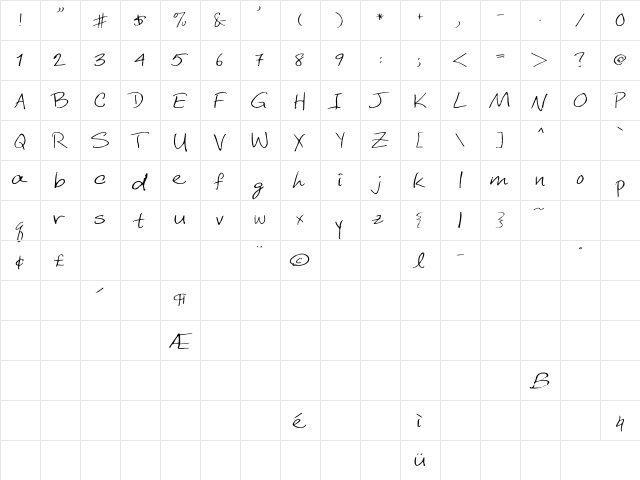
DCWri Ex Regular
Design Context for DCWri Ex Typeface
DCWri Ex is a composed and adaptable typeface that performs quietly and consistently across a wide range of design contexts.